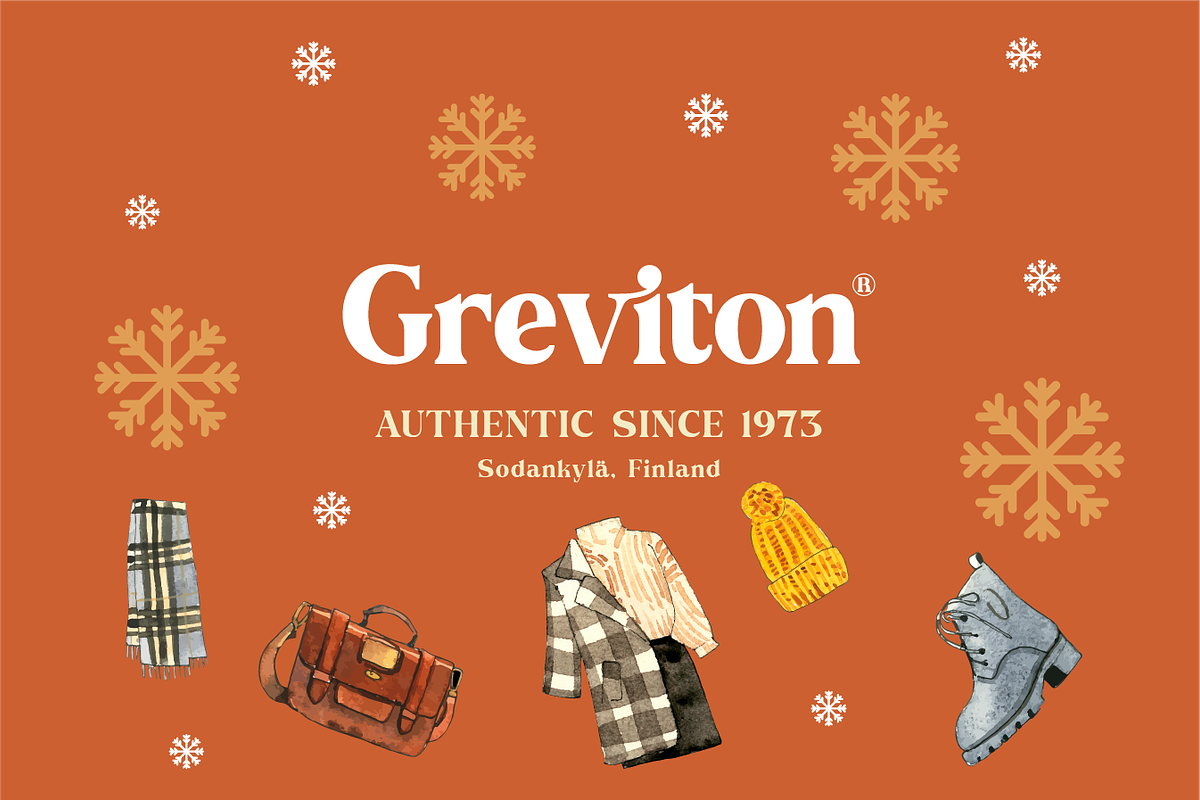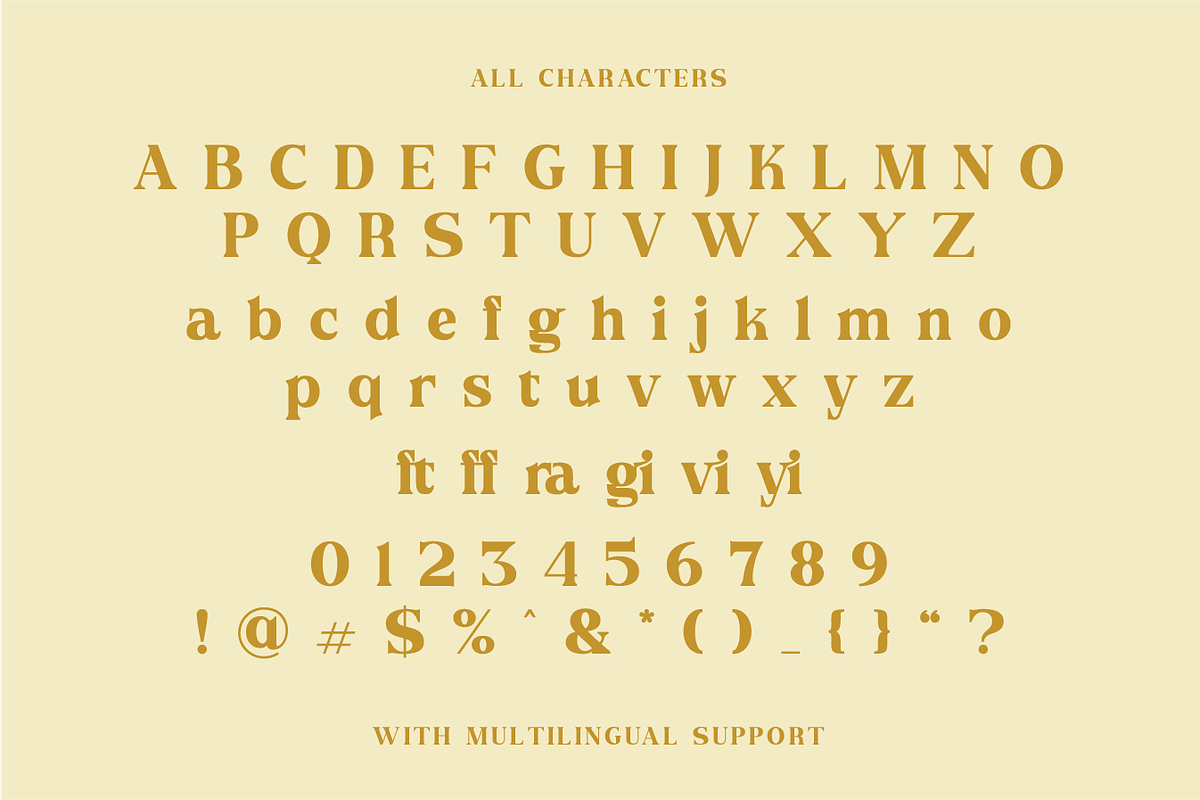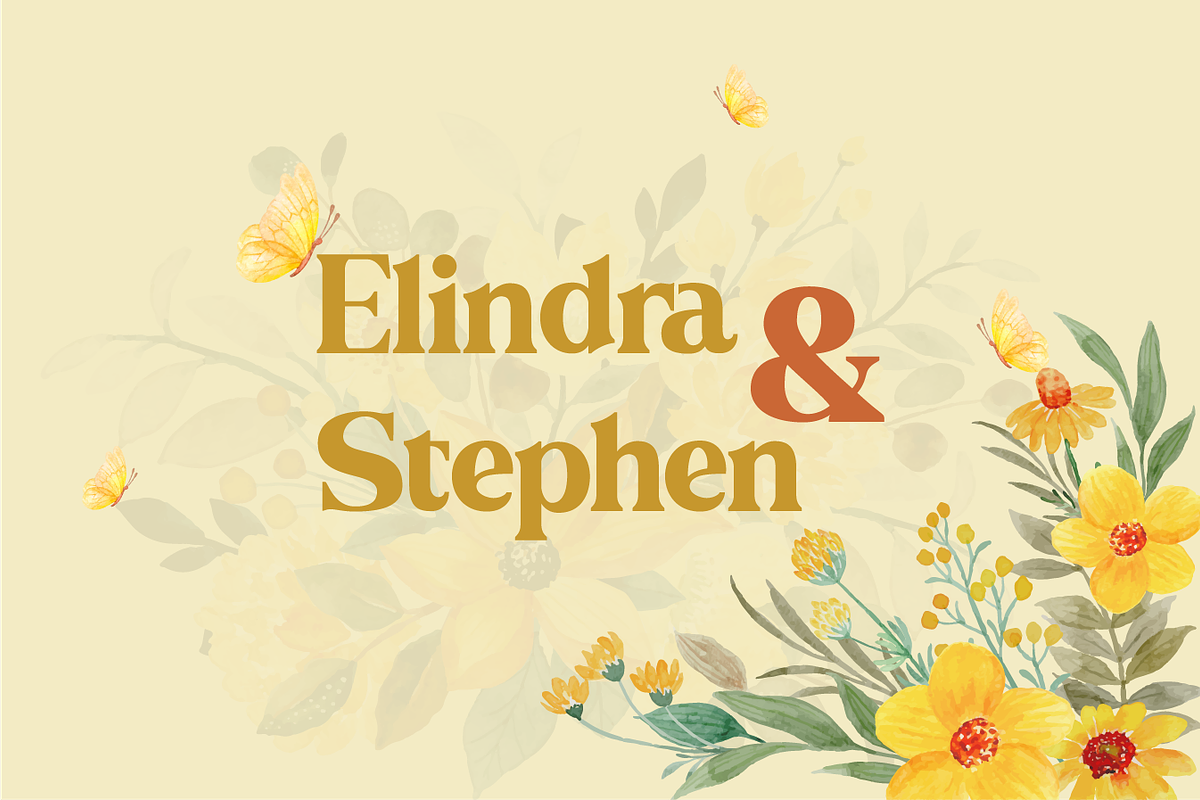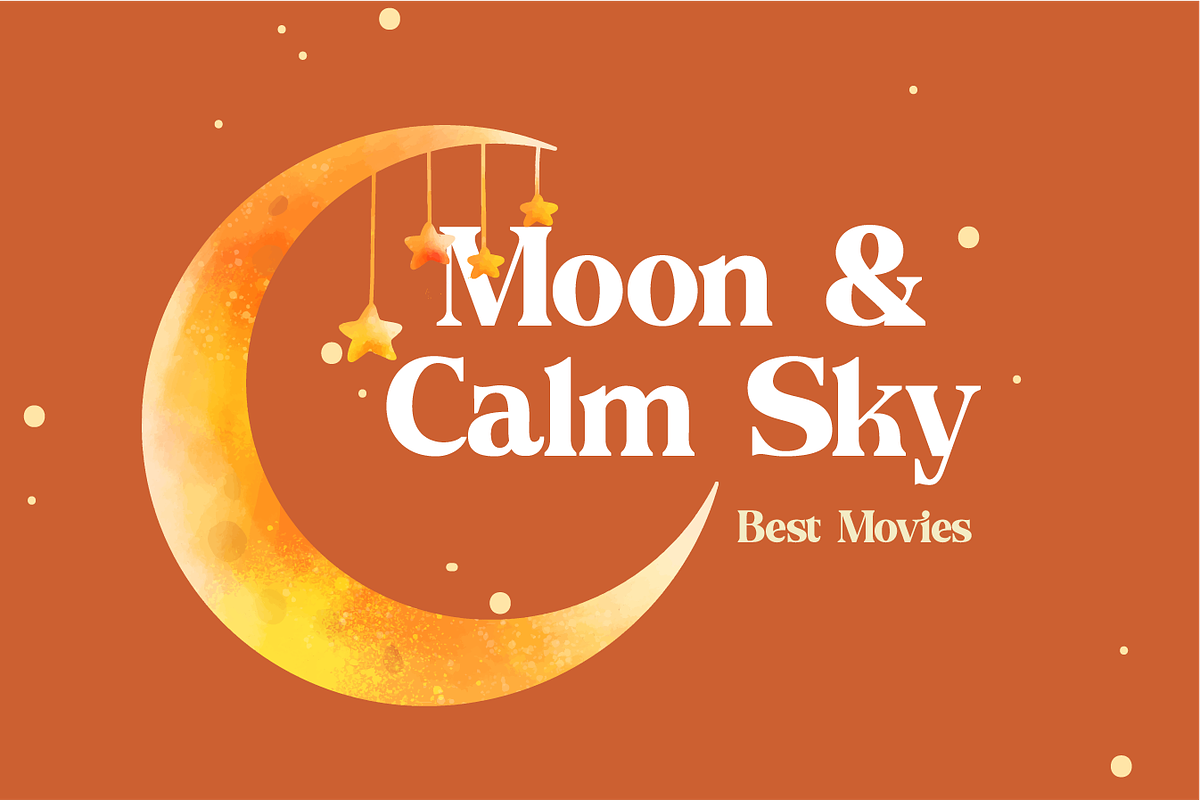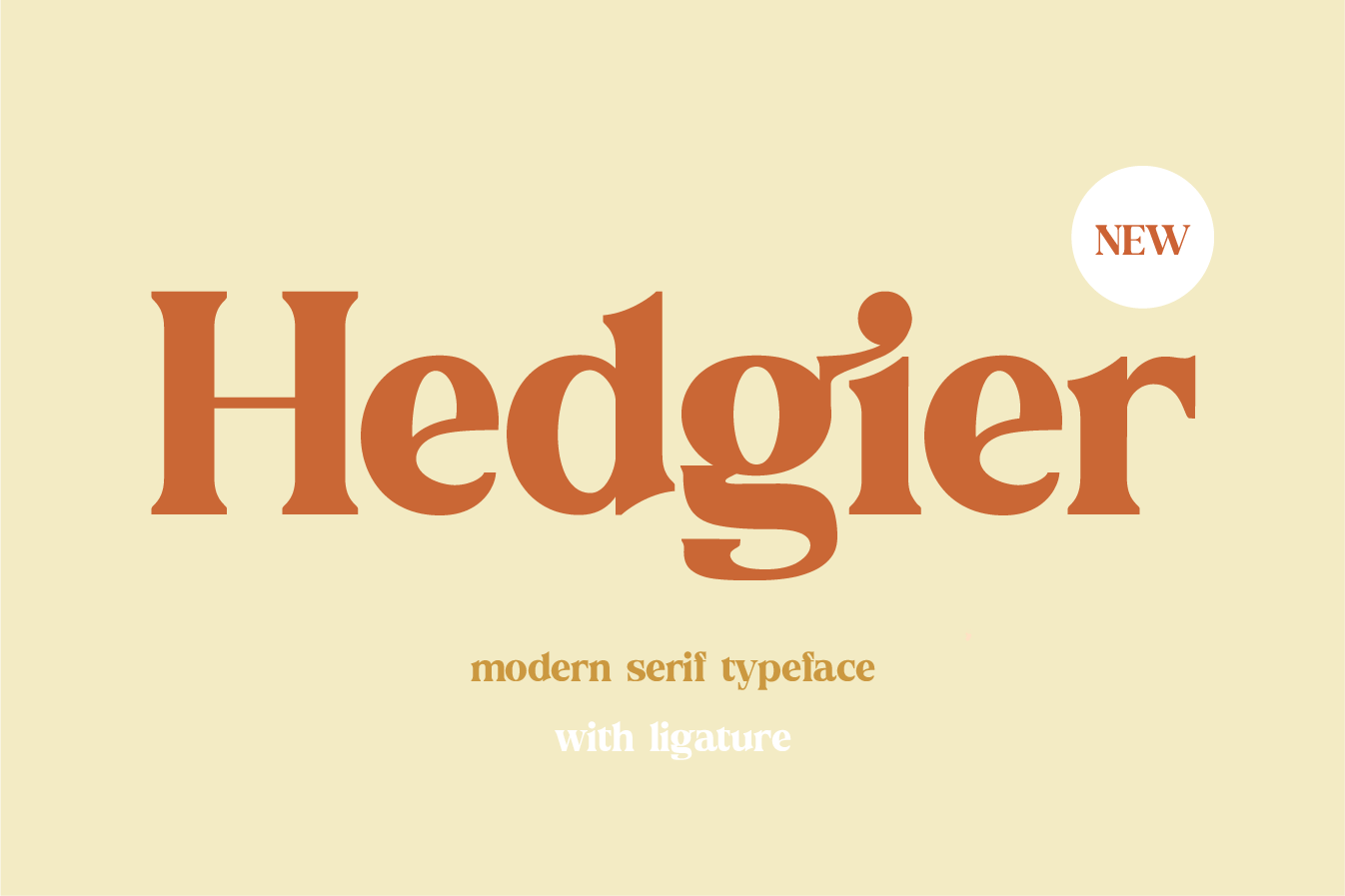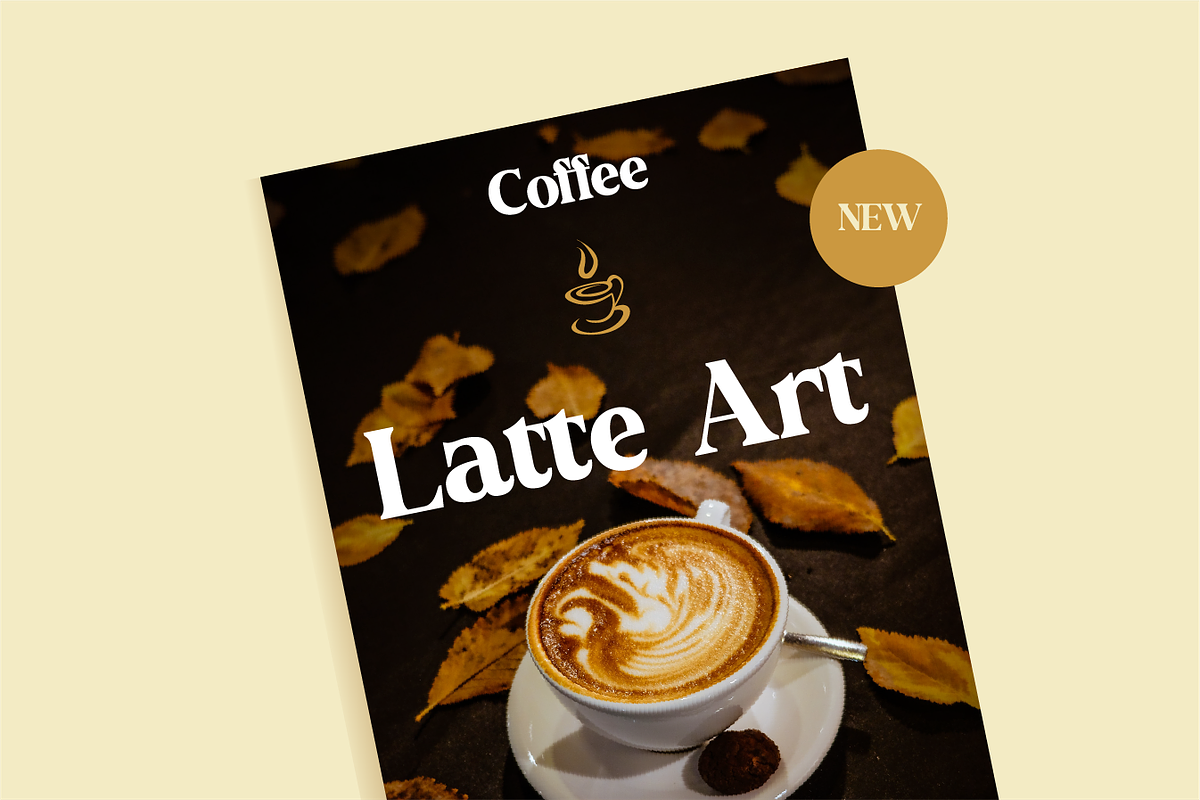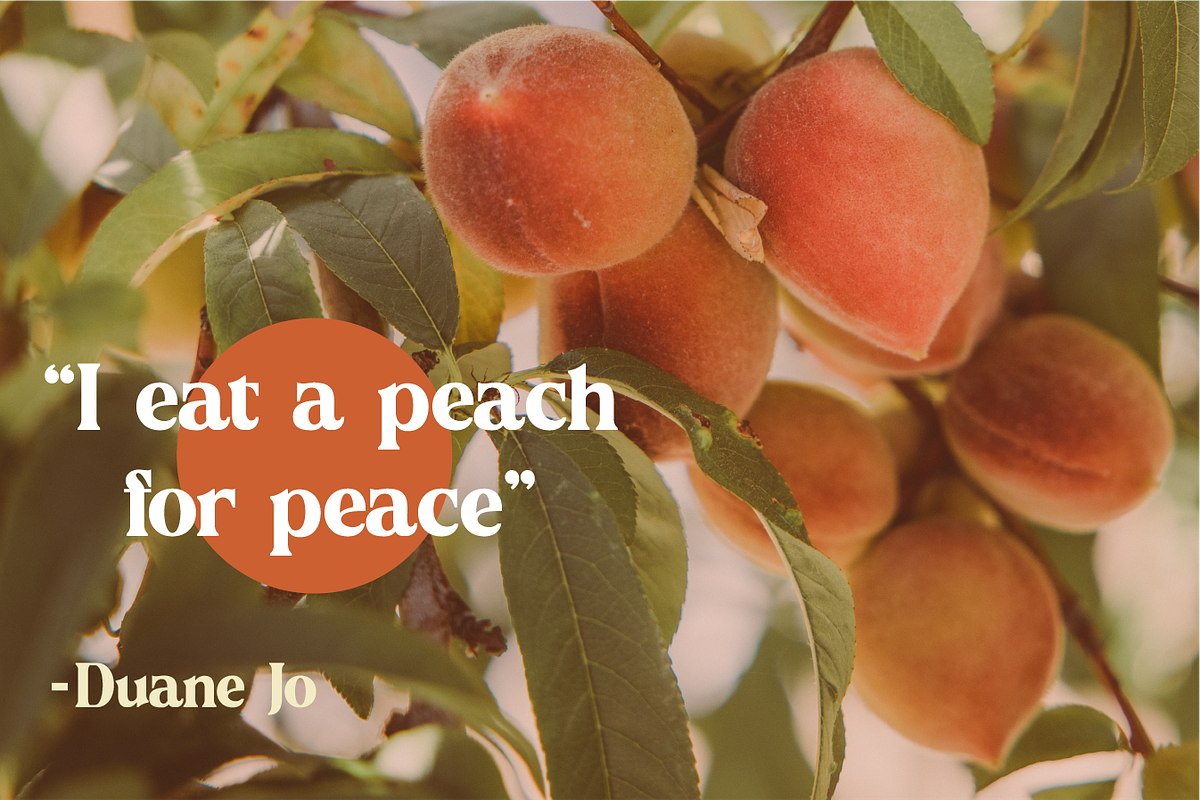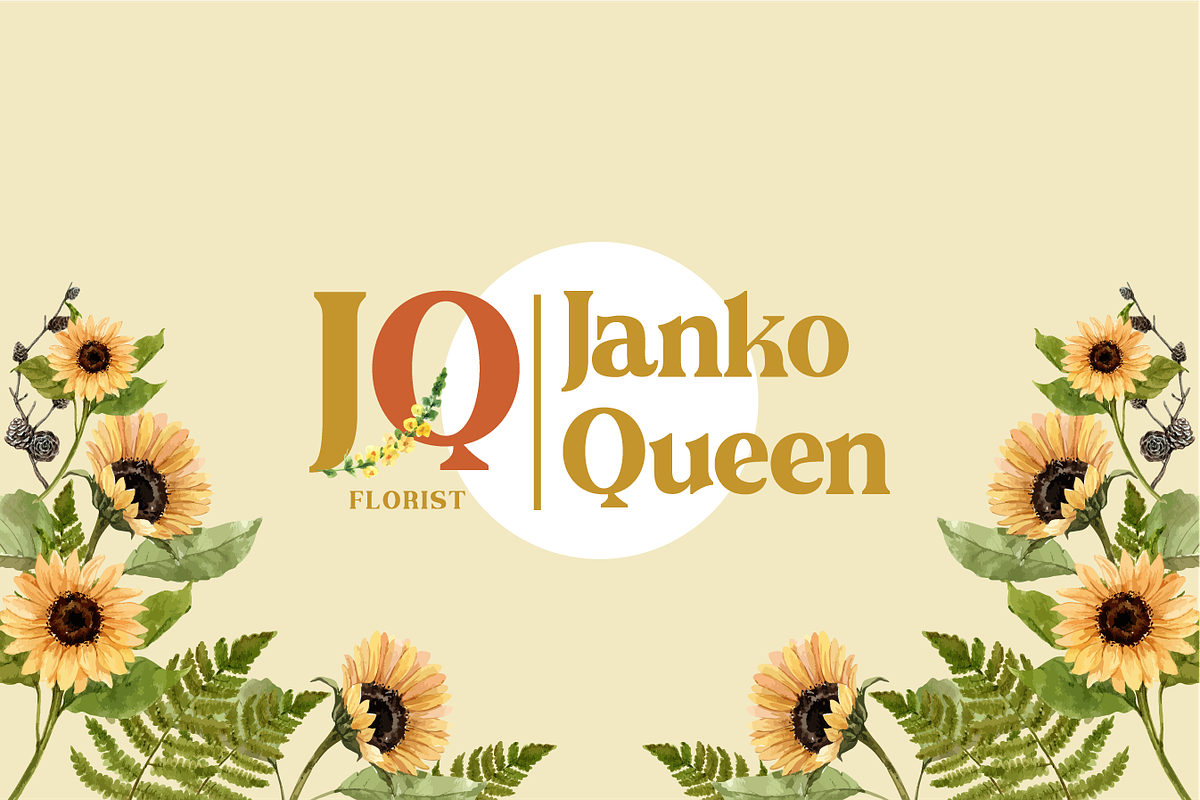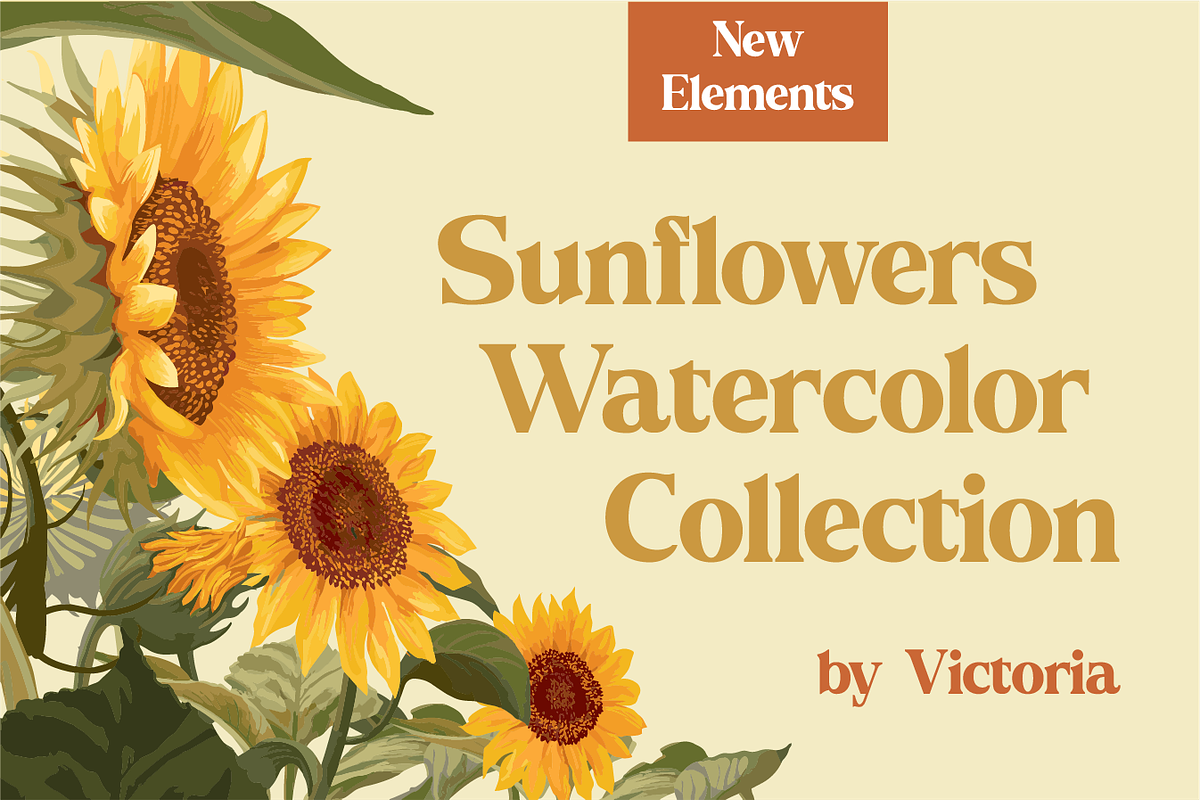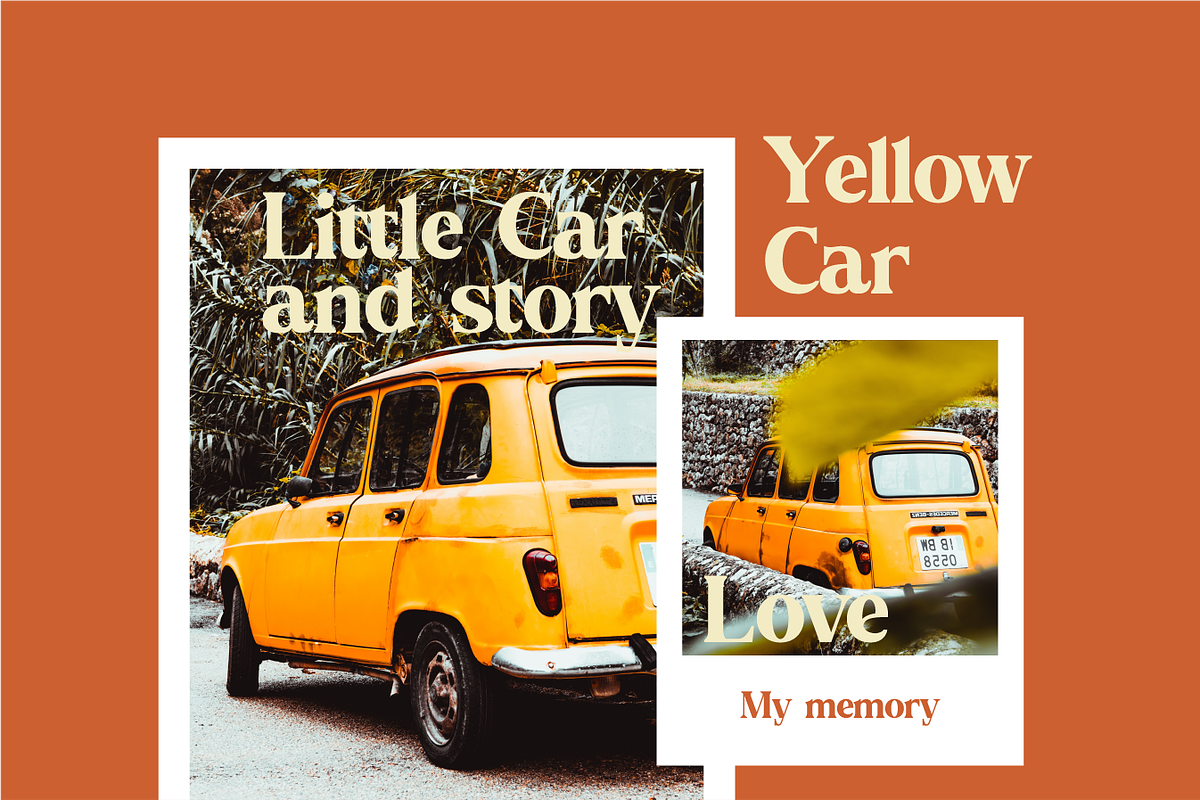
Hedgier - Modern Serif Typeface
Hedgier is a modern bold serif typeface called weiss roman. The combination with the width of each letter forms a modern feel and is suitable for various magazines, logos, branding, photography, invitations, wedding invitations, quotes, blog headers, posters, advertisements, postcards, books, websites, etc.